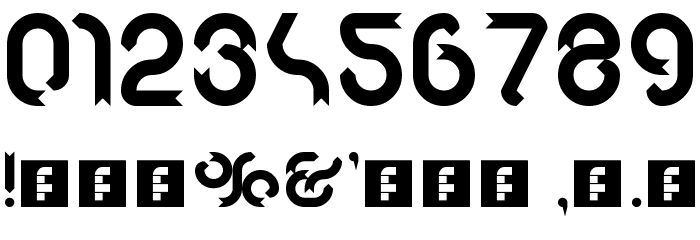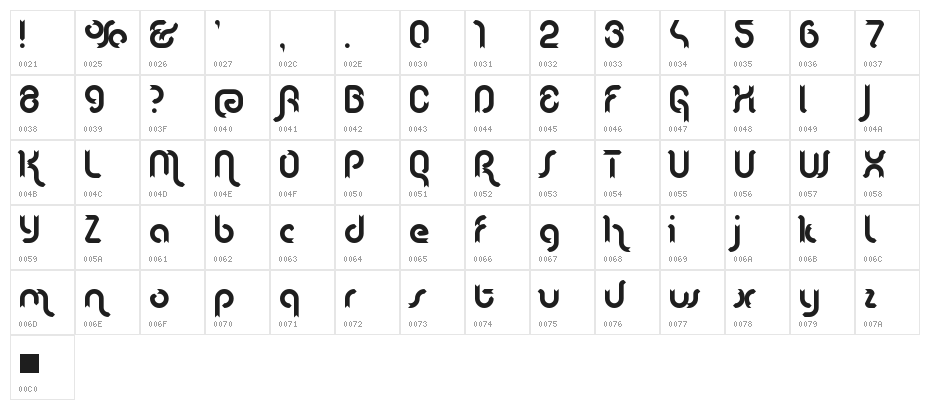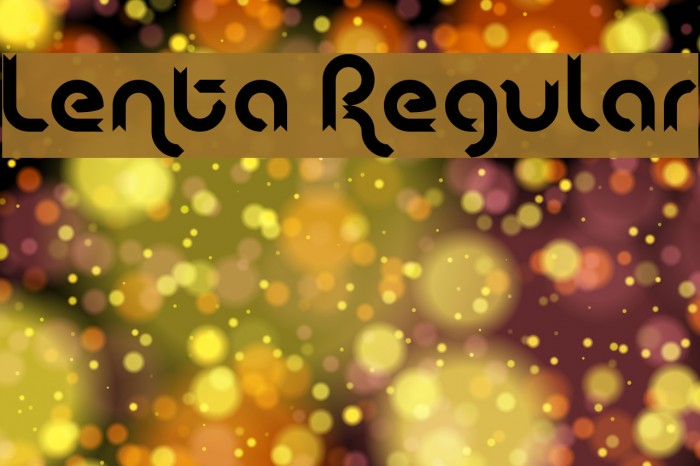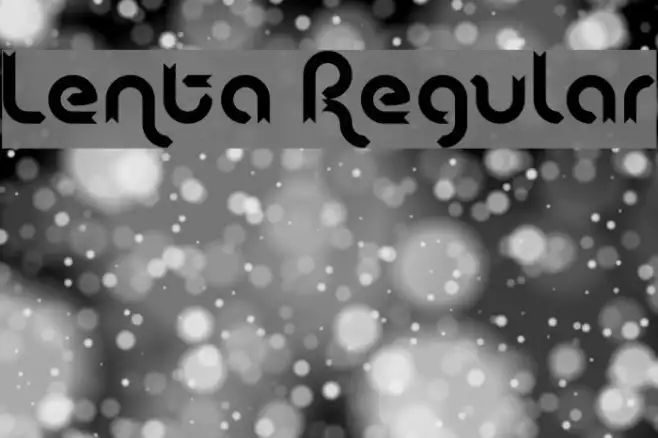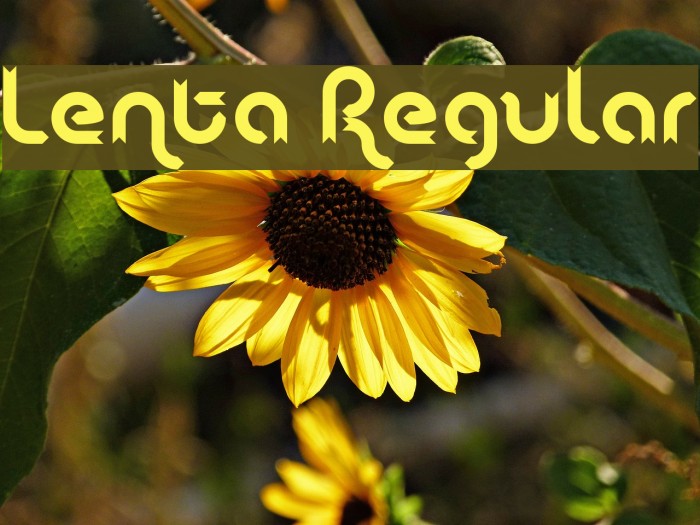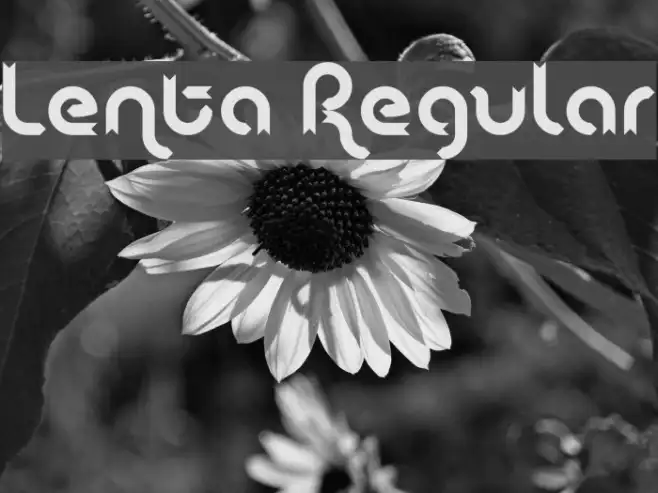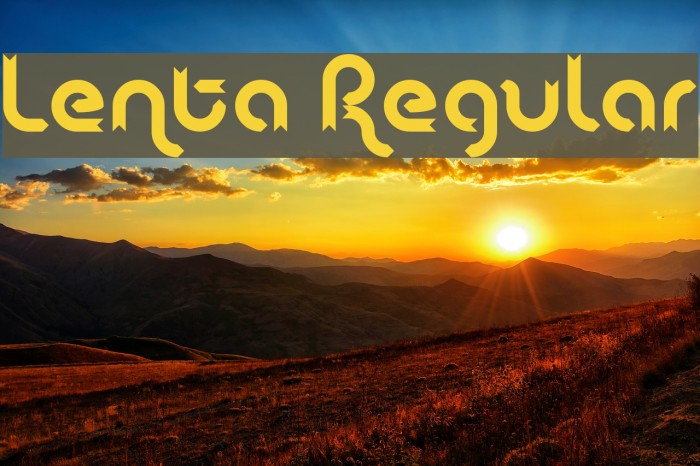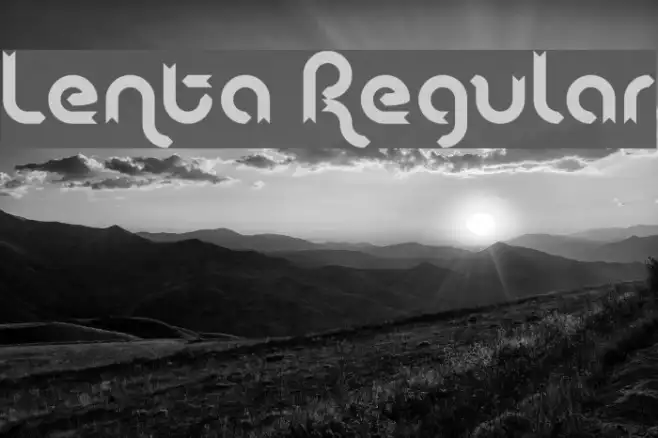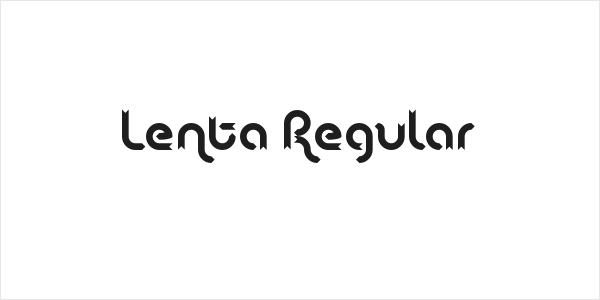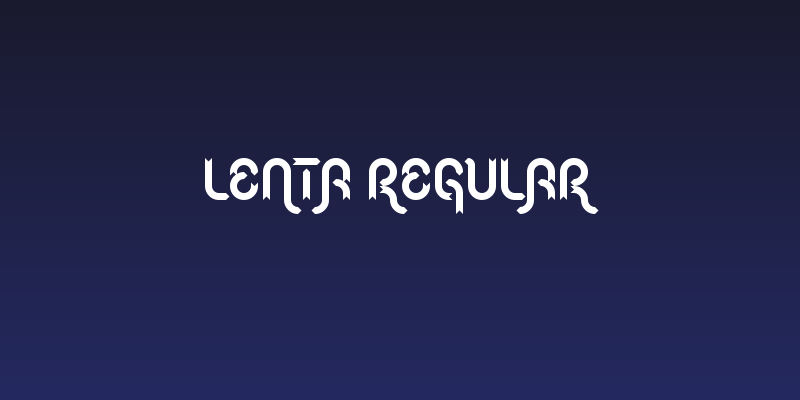
Lenta Regular Font
Lenta Regular Description
This font features a bold and striking design with a unique, decorative flair. The characters are crafted with sharp, angular edges and a modern aesthetic, making them stand out prominently. The uppercase and lowercase letters maintain a consistent style, with distinctive cuts and curves that add a sense of movement and dynamism. The numerals and special characters follow the same design principles, ensuring uniformity across the typeface. This font is ideal for projects that require a bold statement and a touch of creativity.
Proposed ProjectsIdeal for branding, posters, headlines, and any design that requires a bold, artistic touch.